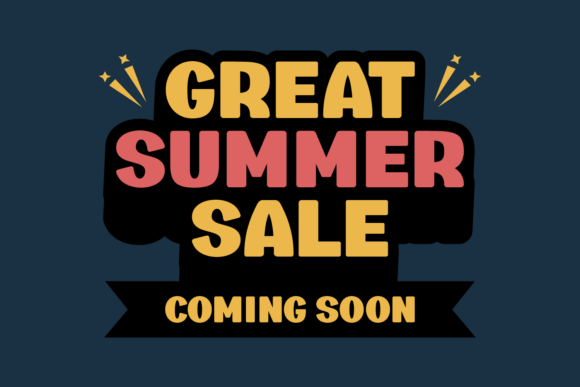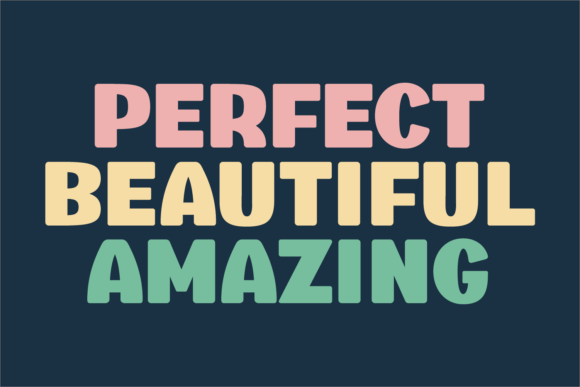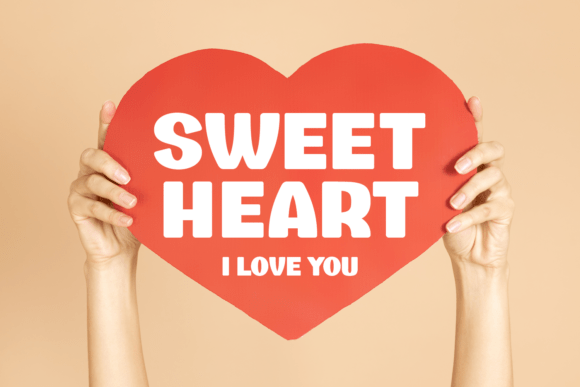
The Dream Lovers Font: A Bold and Beautiful Companion for Creative Projects
Have you ever been in the middle of a design project, and suddenly, you’re stuck on finding the perfect font? I recall a recent experience where I was working on a whimsical branding project for a children’s toy company. My client wanted a font that was both playful and elegant, but I just couldn’t seem to find the right fit. That’s when I stumbled upon the Dream Lovers font, and it instantly brought my ideas to life! In this article, I’ll share my journey with this beautiful sans serif font and explore its features, uses, and potential.
An Honest Review of Dream Lovers Font
What I Love About Dream Lovers Font ✨
- ✅ Unique and distinctive style: Dream Lovers font has a bold and beautiful sans serif design that adds a delightful character to every design.
- ✅ Playful feel: This font delivers a playful touch that’s perfect for crafting, branding, invitations, posters, t-shirts, and more.
- ✅ Versatile features: With its OpenType features, glyphs, and stylistic alternates, Dream Lovers font offers endless possibilities for customization.
- ✅ Easily pairs with other fonts: This font strikes a perfect harmony with other typefaces, making it easy to mix and match.
- ⚠️ Limited use for body text: Due to its bold nature, Dream Lovers font might not be the best choice for lengthy body text.
- ⚠️ Some characters may require manual kerning: As with any font, you might need to adjust the kerning for certain character combinations.
The Backstory Behind Dream Lovers Font
While the actual designer behind Dream Lovers font remains a mystery, it’s easy to imagine the inspiration behind this beautiful typeface. Perhaps the designer was a romantic at heart, seeking to create a font that captured the whimsy and playfulness of falling in love. Or maybe they were inspired by the world of art and design, where bold and beautiful creations reign supreme. Whatever the inspiration, Dream Lovers font is a true gem.
Q: What type of projects is Dream Lovers font best suited for?
A: Dream Lovers font is perfect for creative projects that require a playful and elegant touch, such as branding, invitations, posters, t-shirts, and more.
Q: Can I use Dream Lovers font for body text?
A: While Dream Lovers font is a beautiful and elegant typeface, it might not be the best choice for lengthy body text due to its bold nature. Consider using a complementary font for body text.